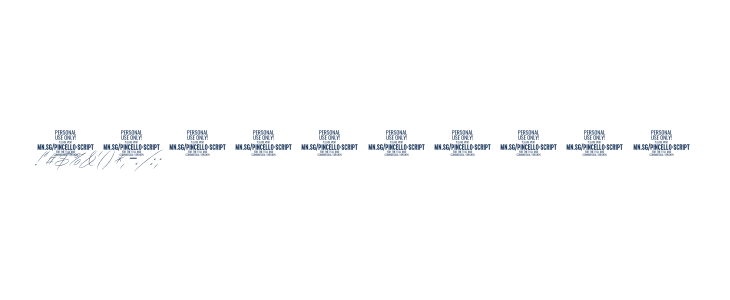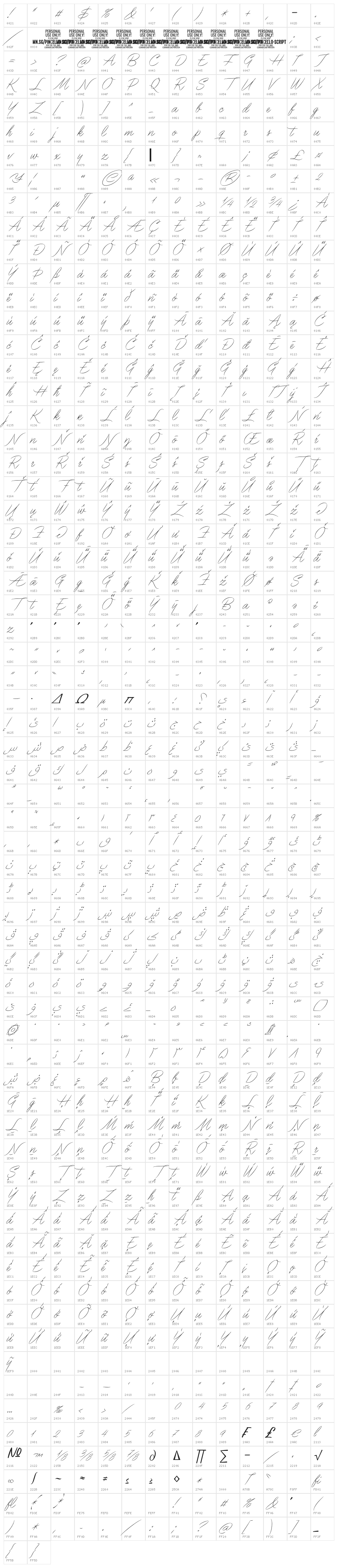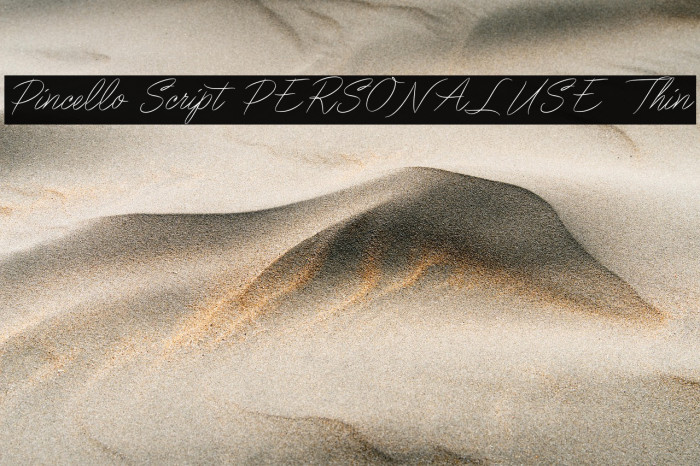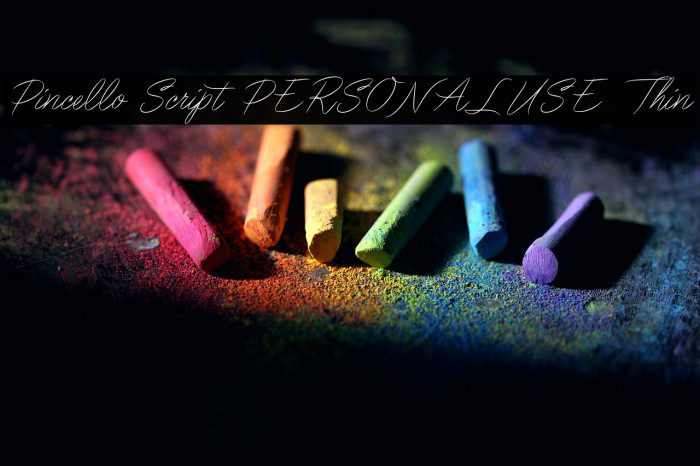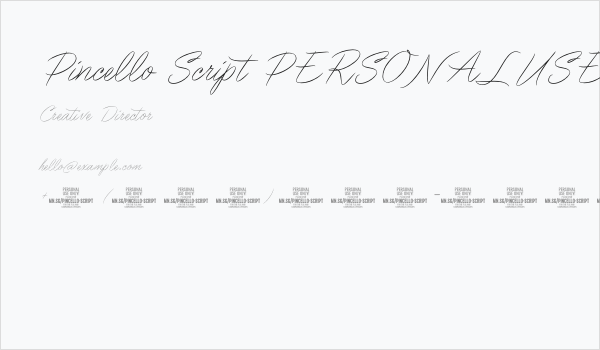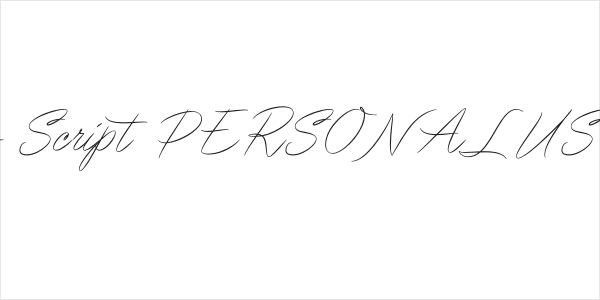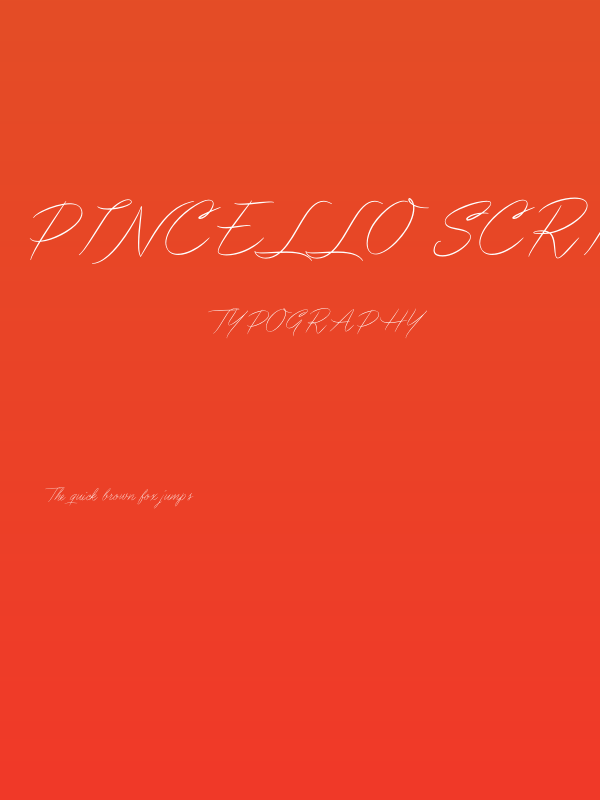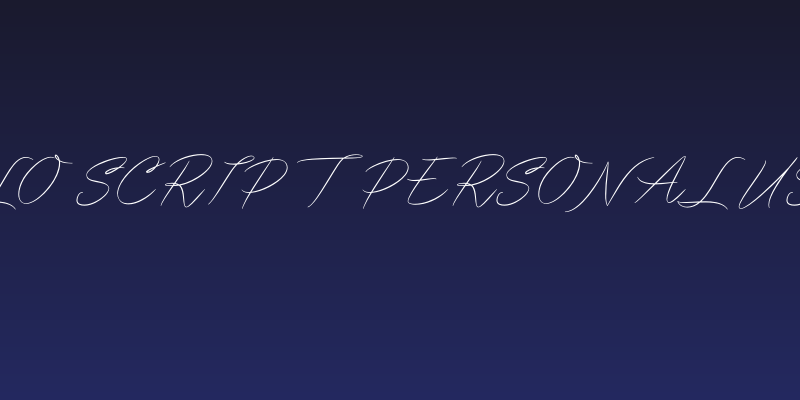
Pincello Script PERSONAL USE Thin Font
Pincello Script PERSONAL USE Thin Description
This elegant script font features a thin, flowing style with graceful curves and loops, reminiscent of traditional calligraphy. The uppercase letters are tall and slender, while the lowercase characters maintain a consistent flow, creating a harmonious balance. The font's delicate strokes and smooth transitions give it a refined and sophisticated appearance, making it ideal for formal invitations, elegant branding, or artistic projects. The special characters are designed with the same attention to detail, ensuring a cohesive look across all elements.
| Overall Style | Elegant, Calligraphic |
| Use Case | Invitations, Branding, Artistic projects |
| Proposed Projects | Ideal for wedding invitations, elegant branding, artistic projects, and formal stationery. |